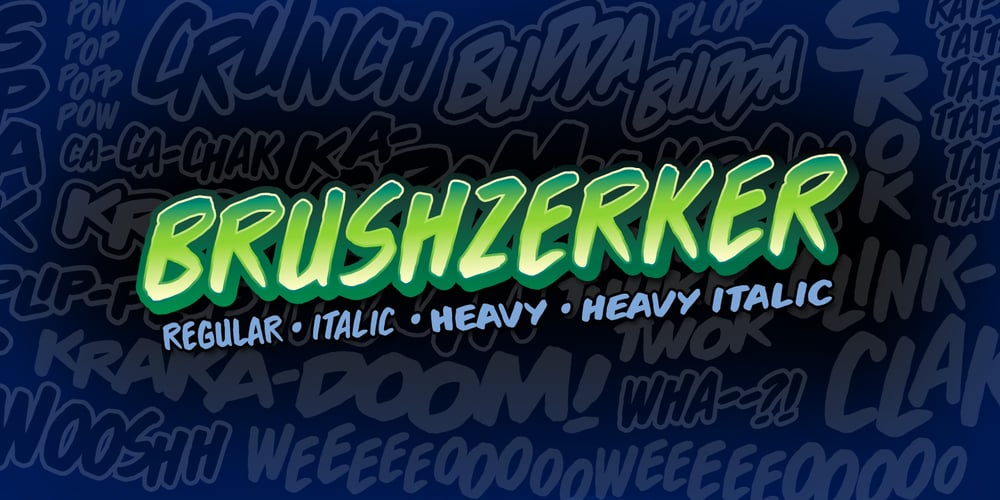
Brushzerker BB Font Family was designed by Nate Piekos and published by Blambot. Brushzerker BB contains 6 styles and family package options. Brushzerker BB is a comic book sound effects font family inspired by filbert brush and ink. It includes Regular, Italic, Heavy, and Heavy Italic, as well as a hefty complement of European characters.